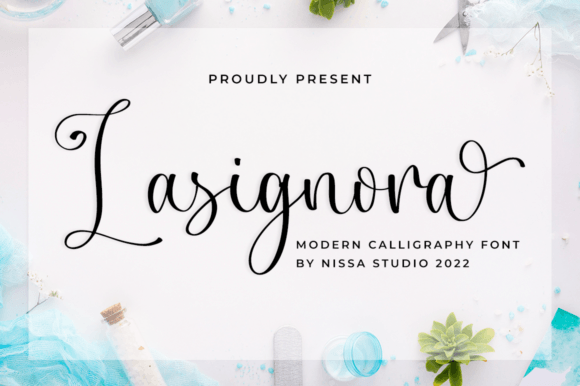
Introducing Lasignora Font, the enchanting script font that captivates hearts with its elegance and modern flair. Dive into a world of creativity where your designs come alive, exuding an aura of sophistication that leaves a lasting impression.
With Lasignora, you hold the key to unlocking a realm of possibilities. Envision your logos, branding, invitations, and stationery adorned with this exquisite font, each stroke a testament to your refined taste and attention to detail. Let your social media posts shimmer with an eye-catching allure that draws followers into your captivating world.
Lasignora's delicate curves and graceful swashes dance across the page, creating a symphony of visual harmony. Its PUA encoding ensures effortless access to a treasure trove of glyphs and swashes, empowering you to unleash your creativity without limits.
Step into the realm of impeccable design, where Lasignora transforms your creative visions into tangible masterpieces. Its versatility knows no bounds, seamlessly adapting to a myriad of projects, from logos and branding to invitations and social media posts.
Lasignora is your muse, your creative companion, guiding you through the labyrinth of design with its timeless elegance. Embrace the power of this extraordinary font and witness the transformation of your creative endeavors into works of art that resonate with grace and sophistication.